TypeTalk: Font Games Galore
Several type and font games are making the rounds on the Internet. Most are meant to be both entertaining and educational, but not every one hits that mark.
KernType
This is the game everyone’s talking about. The goal of KernType is to slide the letters of a word to the right and left to create even spacing. But while the programming skill that went into this game is impressive, some of the “solutions” aren’t typographically acceptable by professional standards; in fact, one is way off.
While the developer of this game has admitted on a type blog that his type skills “might not be up to par” and has invited submissions of better solutions, I think the admission and invitation should be posted on the actual game.
So if you play, enjoy the game but take the solutions with a grain of salt, and maybe think twice before you brag publicly about a high score.
In the examples below, note the difference between the game’s solution (upper) and mine (lower) for the word “Type,” one of the most difficult words to space. For more on kerning, read “Take the Three-Letter Approach to Kerning”.
ShapeType
The most interesting of the group to me, this letter-shaping game lets you manipulate Bézier curves to correct the shapes of ten distinctive glyphs. You get to compare your solution with the correct one and are given a percentage of similarity. Don’t worry if you don’t score well; the true value of this game is in helping develop a sensitivity to the subtleties of letterforms, which will enable you to see and appreciate the skill and artistry that goes into designing a typeface.
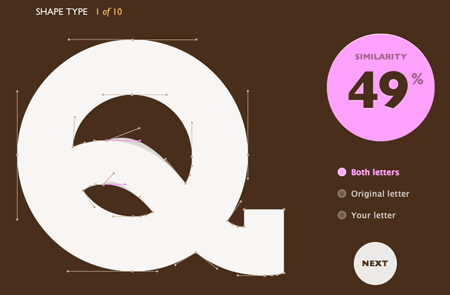
The Rather Difficult Font Game
This multiple-choice typeface identification game shows a sample of each typeface, with four possible solutions. It’s not really that difficult if you know a bit about fonts, as there are usually two or three you can eliminate right off the bat. Nonetheless, it’s a fun game that’s just the right length to avoid boredom or frustration. Plus, the sequence rotates when you restart, which keeps it interesting.
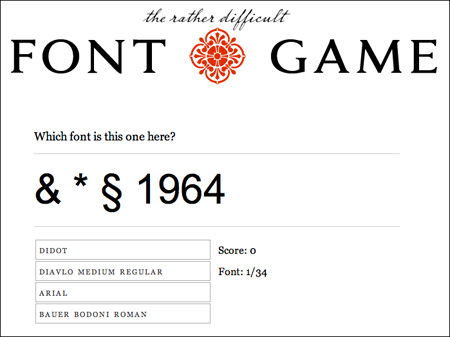
Cheese or Font
If you’re a turophile (cheese-lover) as well as a typophile, you’re sure to be entertained by this game. The challenge is to decide whether the name in question describes a cheese or a font. Even those who know a lot about type may be stumped, as there are many obscure names for both font and cheese. Nothing visual here, and the game is quite long with 268 combos, but you can bookmark it and return later. I’m betting you’ll become addicted.
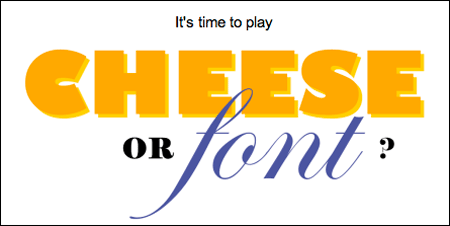
Deep Font Challenge
This fast and furious arcade-style font identification game will give you an adrenaline rush. You have only a limited number of seconds to shoot the right font target(s), and the game gets progressively more difficult. Also a bit addictive, but it’s frustrating that after three strikes you’re out. Unless you get most of them right, you may never reach the end of the game.